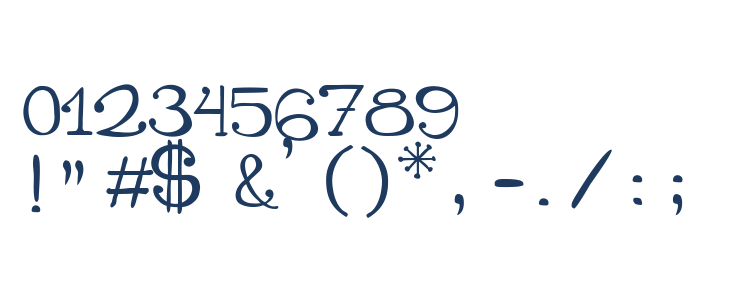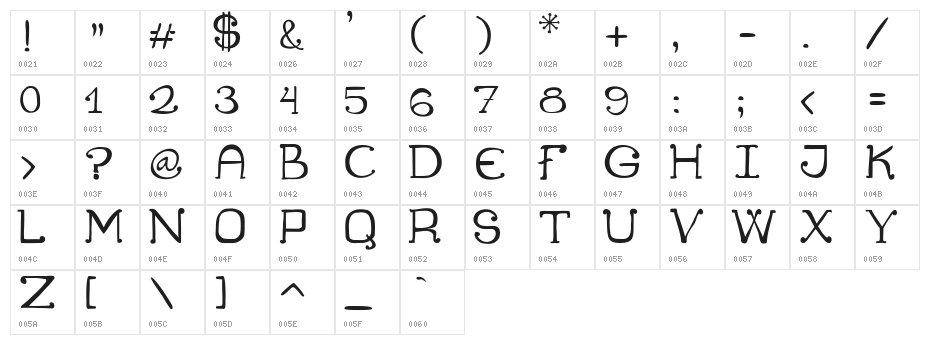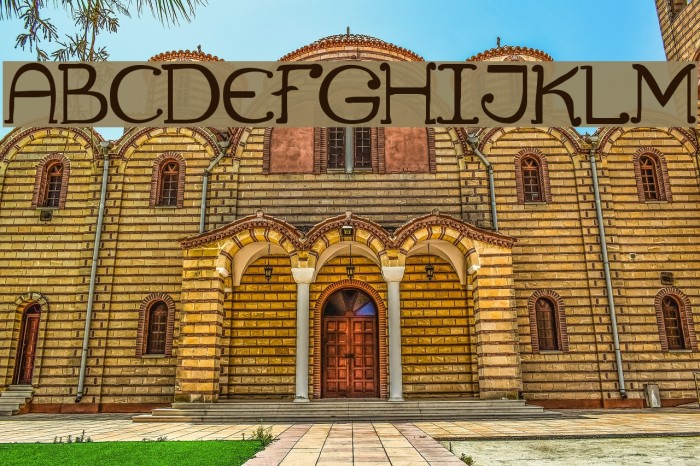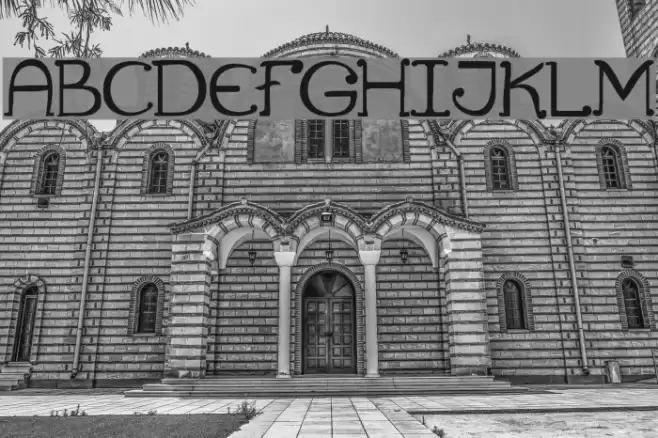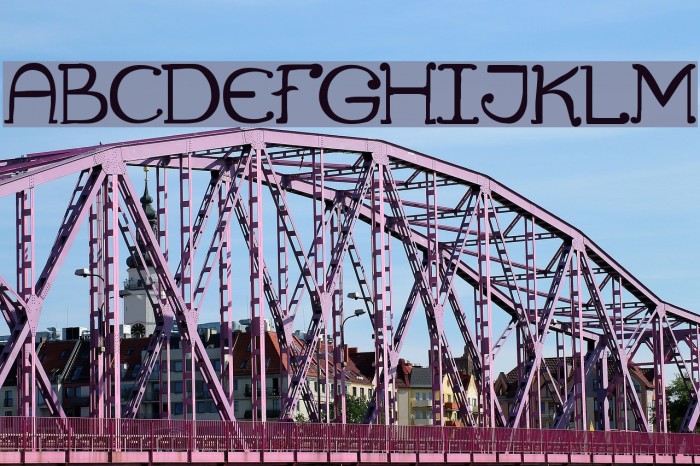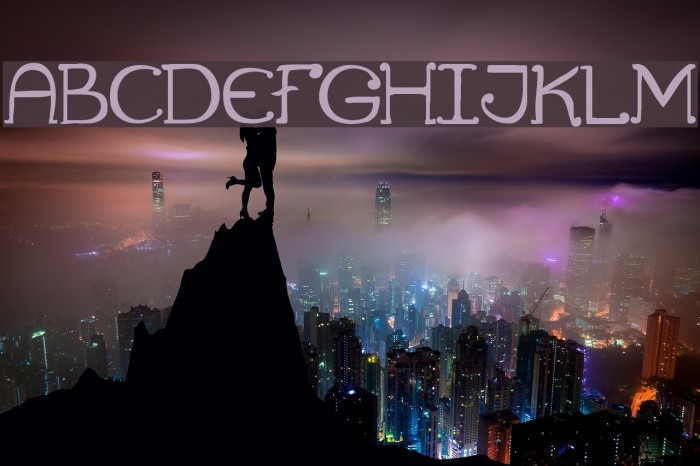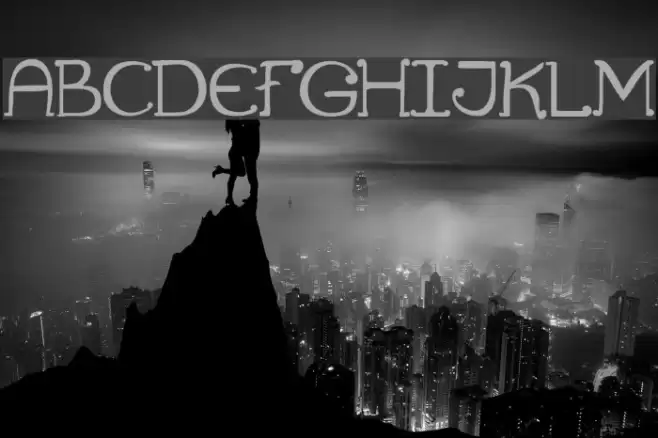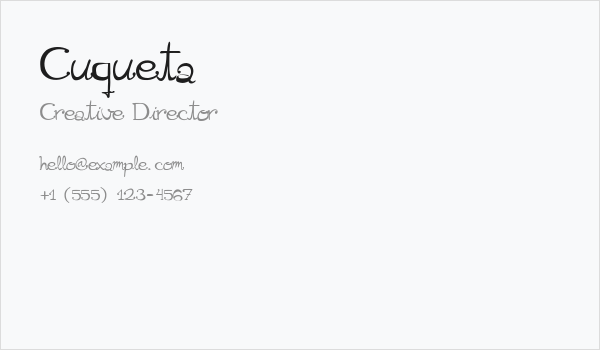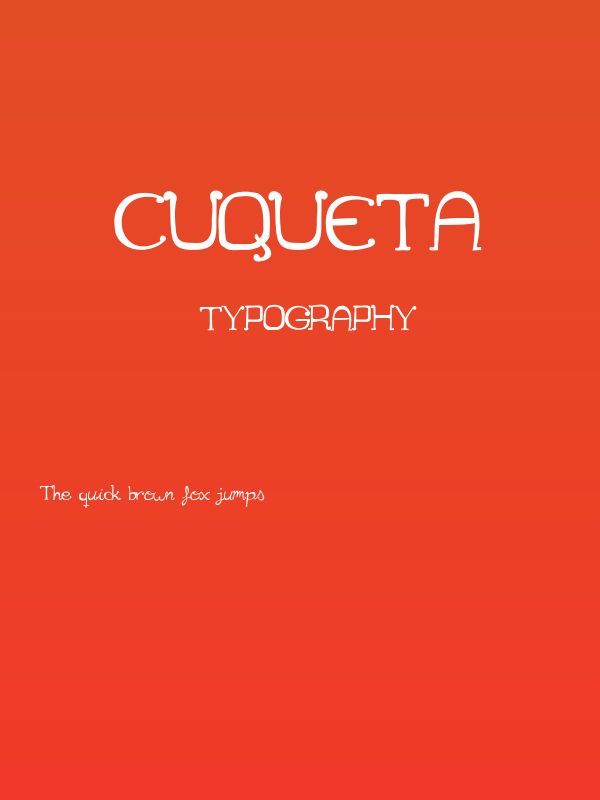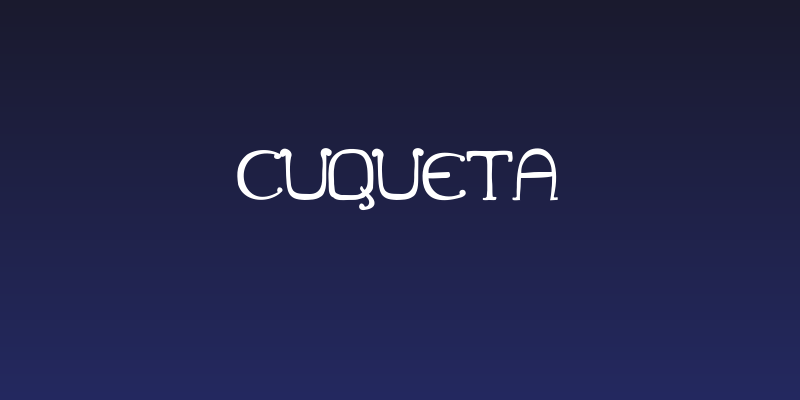
Cuqueta Font
Cuqueta Description
This font features a playful and whimsical design, characterized by its unique blend of rounded and angular elements. The uppercase letters exhibit a distinct style with slightly exaggerated curves and loops, giving them a lively appearance. The lowercase letters maintain a consistent flow, with some characters featuring charming swashes that add to the font's playful nature. The numerals are bold and clear, ensuring readability while maintaining the font's overall quirky aesthetic. Special characters are designed with the same playful touch, making them suitable for creative projects.